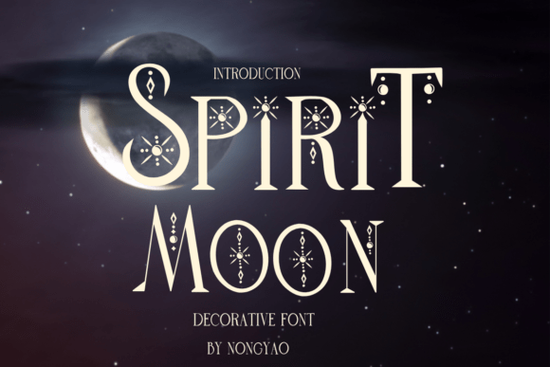
If you’ve been searching for a decorative font that feels personal and expressive without being overwhelming, Spirit Moon Font might be exactly what your next project needs. It’s the kind of typeface that works just as well in a quiet journal entry as it does on a bold social media graphic. Whether you’re designing greeting cards for friends, custom mugs to sell online, or updating your brand’s stationery, this font adapts without losing its charm.
What makes Spirit Moon Font especially useful is how legible it stays even with its decorative flair. You don’t have to sacrifice readability for style, which is rare in fonts this characterful. That balance is why so many print-on-demand sellers and small business owners keep coming back to fonts like this one. If you liked the playful energy of Fiesta Circuit or the clean lines of David, you’ll find Spirit Moon sits comfortably between those two worlds.
What kinds of projects is Spirit Moon Font best for?
You can use Spirit Moon almost anywhere you’d normally reach for a handwritten or script-style font but with more personality. Here are some real-world uses we’ve seen designers love:
- Personal journals and planners – The letterforms feel intimate, like something you’d write by hand.
- Greeting cards and invitations – Especially for occasions that call for warmth: birthdays, baby showers, thank-you notes.
- Custom merchandise – Think shirts, tote bags, or ceramic mugs where the text becomes part of the design.
- Social media graphics – Quotes, announcements, or promotional posts that need to stand out without shouting.
- Wedding stationery – Pairs beautifully with minimalist layouts. Try combining it with Dove Wedding Monogram for elegant monograms.
One thing to note: while Spirit Moon has enough weight to hold up in banners or posters, it really shines in smaller-scale applications. That’s not a limitation it’s a strength. Knowing when to use it (and when to switch to something bolder like Blaze) will help your designs feel intentional.
How does it pair with other fonts?
Spirit Moon plays nicely with clean sans-serifs and minimal serifs. Try setting body text in a neutral font like Helvetica or Lora, then using Spirit Moon for headlines or accents. Avoid pairing it with other decorative fonts unless you’re going for intentional contrast for example, using Fiesta Circuit for a party banner headline and Spirit Moon for the date or location underneath.
A quick tip: leave plenty of white space around Spirit Moon. Its curves and subtle flourishes need room to breathe. Cramping it into tight layouts or layering it over busy backgrounds can make it lose its gentle impact.
Who should consider downloading this font?
This isn’t a font for corporate annual reports or technical manuals. But if you’re someone who:
- Makes printable wall art or planner inserts
- Runs a small Etsy shop selling personalized gifts
- Designs social content for wellness brands, boutiques, or handmade goods
- Likes adding a human touch to digital designs
…then Spirit Moon will earn its place in your toolkit. It’s also beginner-friendly. You don’t need advanced typography skills to make it look good.
Any limitations I should know about?
It doesn’t include extended language support beyond basic Latin characters, so if you’re typesetting in Cyrillic, Greek, or non-Latin scripts, you’ll need to look elsewhere. Also, while it includes standard punctuation and numerals, there aren’t alternate glyphs or swashes included what you see is what you get. For more ornate options, check out Dove Wedding Monogram or similar decorative sets.
Still, within its scope, Spirit Moon delivers consistent quality. The spacing is well-tuned, and the kerning holds up even at smaller sizes. That reliability matters when you’re printing physical products or exporting high-res graphics.
Before you download, here’s a quick checklist:
- Do you need a font for personal or emotional projects? → Spirit Moon fits.
- Are you pairing it with simple, clean fonts? → That’s the sweet spot.
- Will it be used mostly at medium to large sizes? → Yes? Perfect.
- Need multilingual support or fancy alternates? → Consider other options.
Give it a try on a small project first maybe a quote graphic or a gift tag. See how it feels in your workflow. Sometimes the right font isn’t the flashiest one; it’s the one that quietly makes everything else look better.